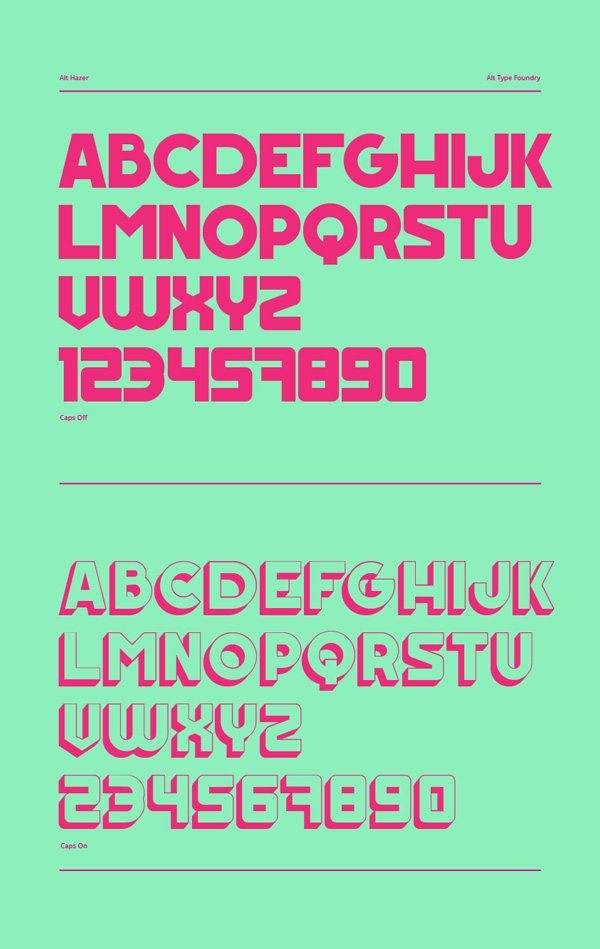
Hazer Font
Hazer Typeface is a decorative typeface, ideal for posters,logos, etc.Hazer is completely free, caps only, basic Latin and Greek glyphs.You can change styles with caps on and off. Designed by Andreas Leonidou.